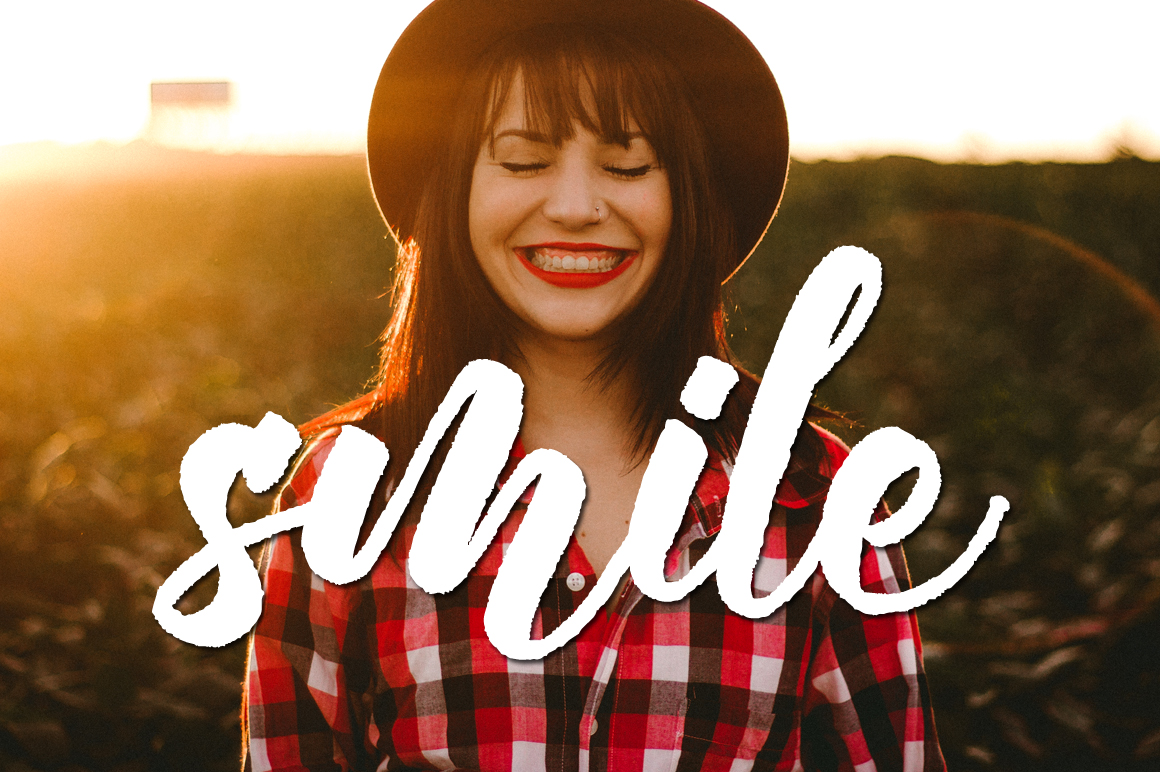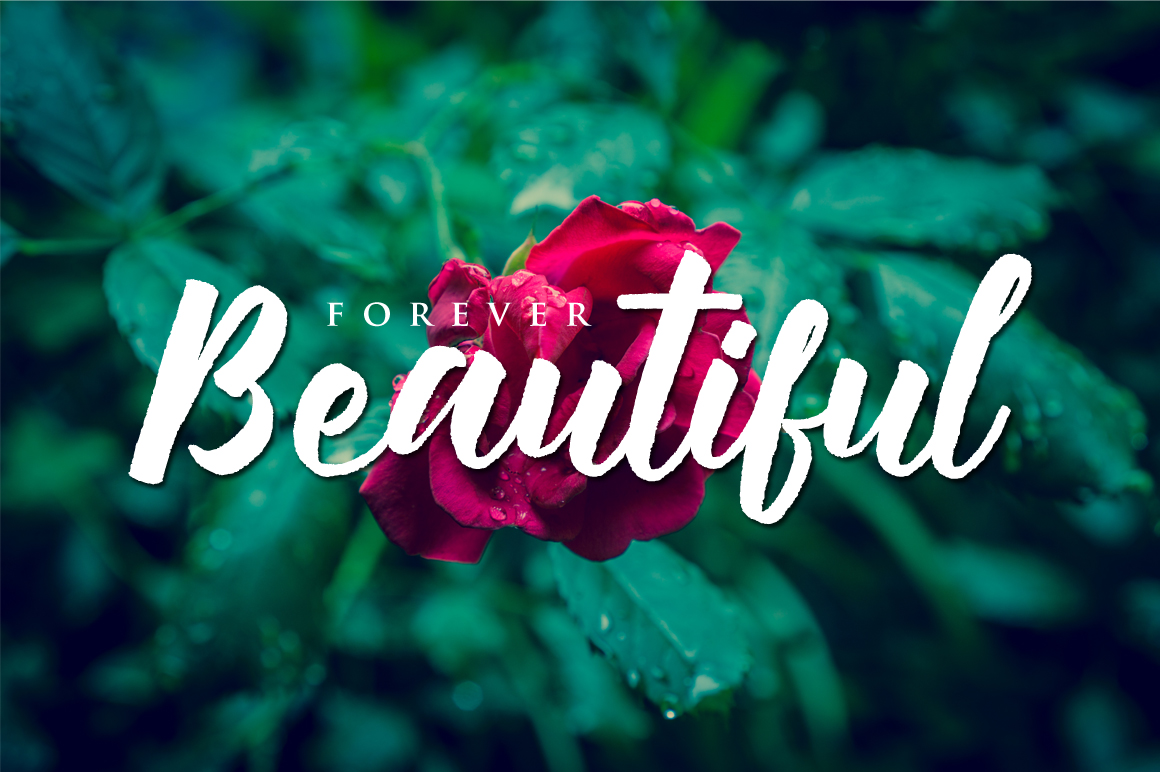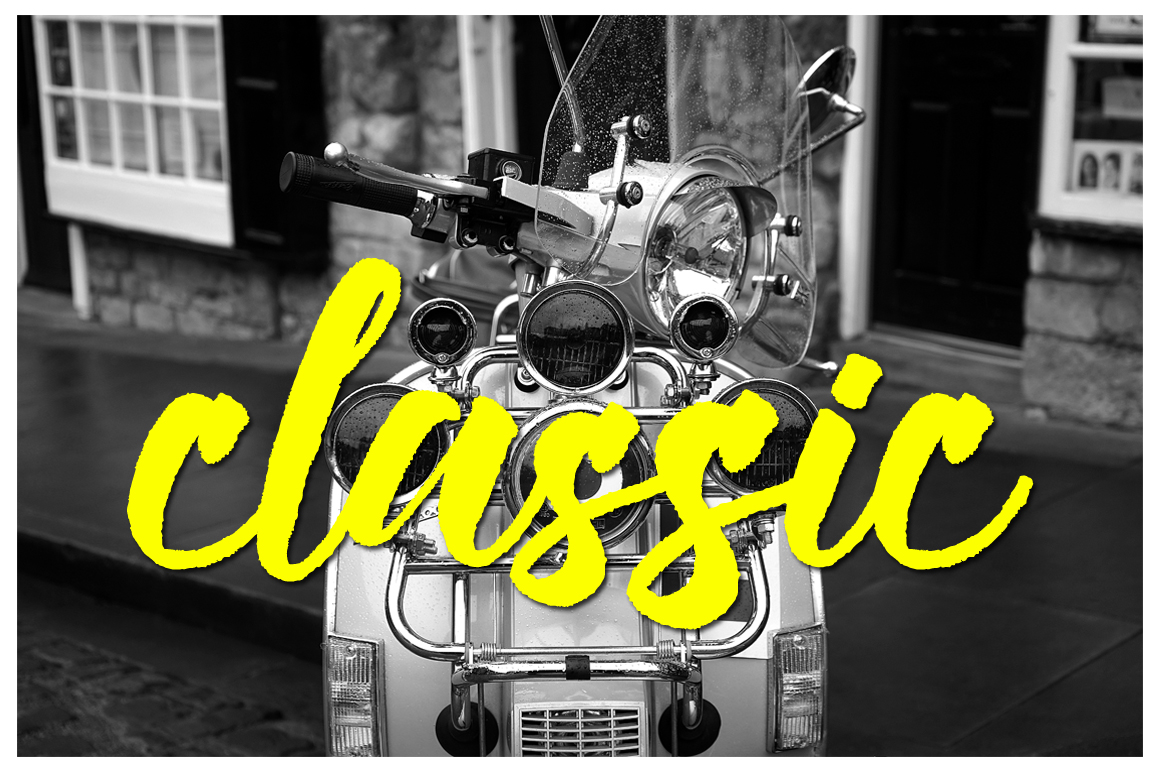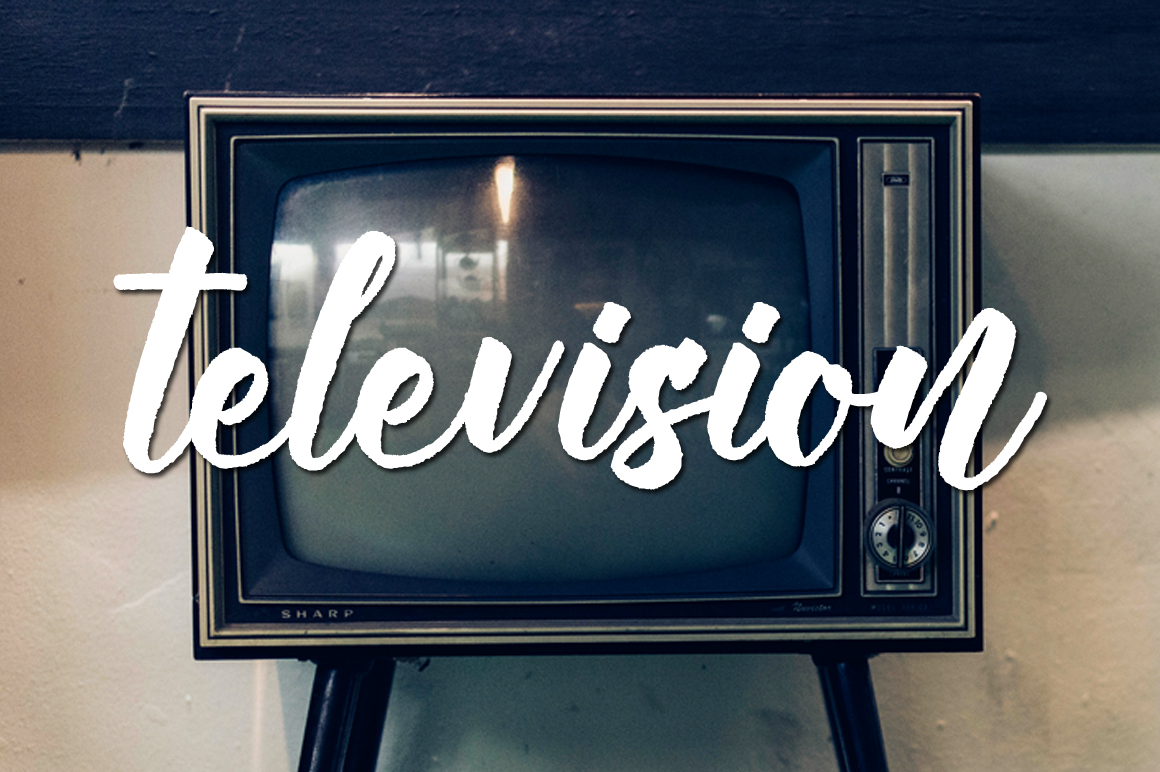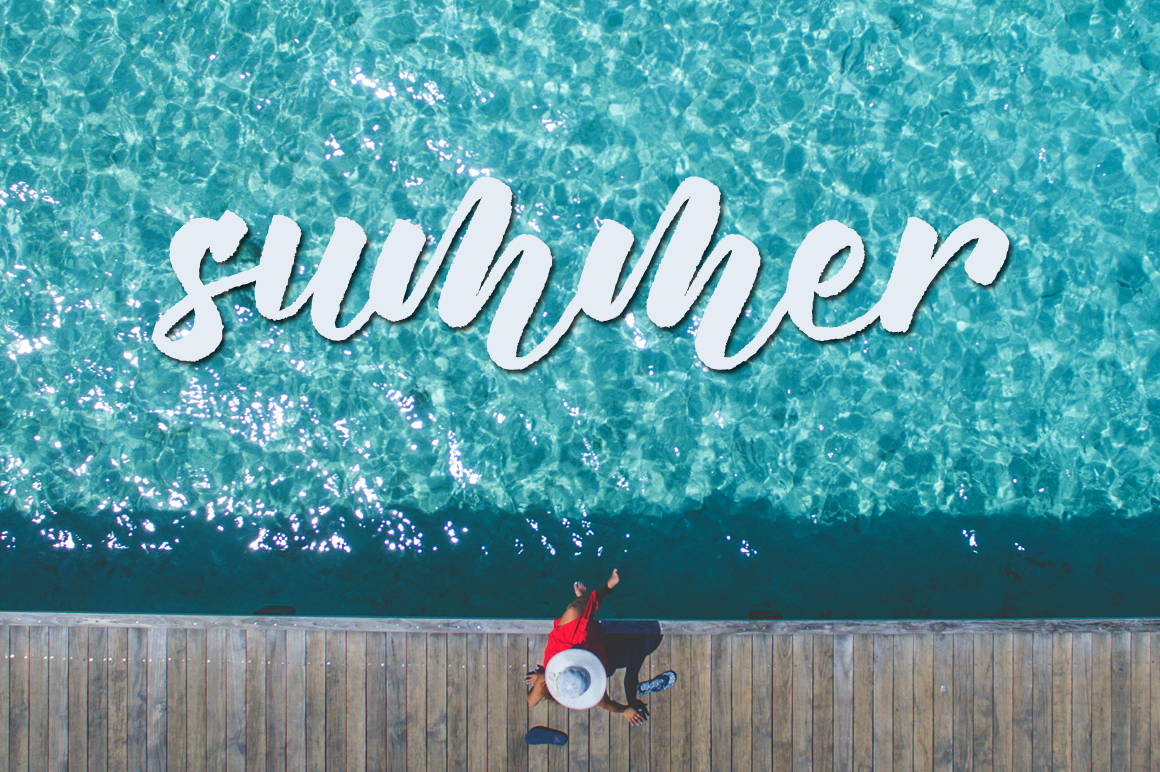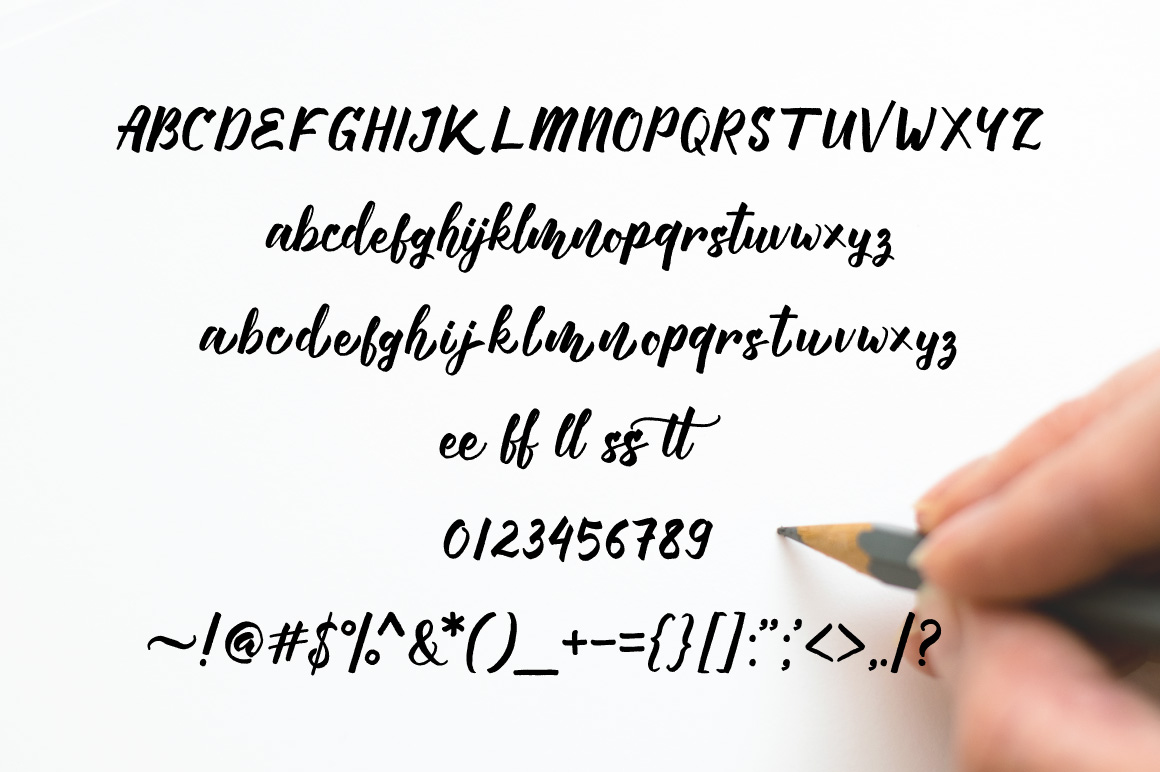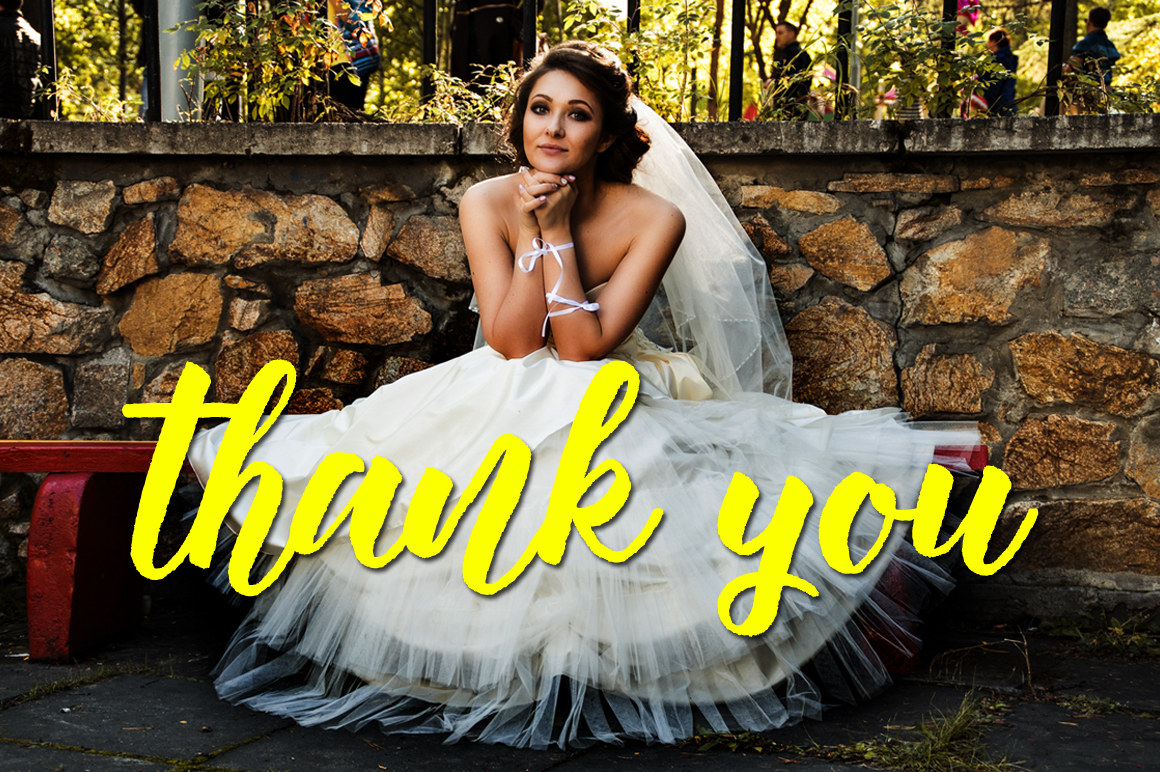
Manttes Font
About Manttes Font
Manttes is a handmade font created in a modern calligraphic style. It can be used for many different types of projects.